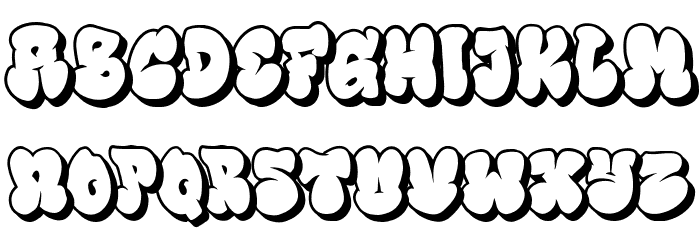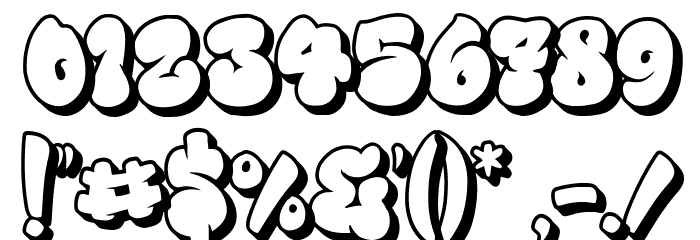
Street Urban Shadow Font
This font features a bold, playful style with a strong urban influence. Each character is designed with a thick, rounded form and a prominent shadow effect that gives a three-dimensional appearance. The letters are evenly spaced, maintaining a cohesive look across both uppercase and lowercase alphabets. The numbers and special characters follow the same design principles, ensuring consistency throughout. The font's bubbly and exaggerated forms make it ideal for eye-catching designs. Its unique style is perfect for projects that aim to convey a sense of fun and creativity.
A bold, playful font with a strong urban influence and a three-dimensional shadow effect.
- Font: Street Urban Shadow
- Weight: Shadow
- Proposed Projects: Ideal for street art designs, graffiti-inspired projects, posters, and playful branding.
- Overall Style: Urban, Playful, Modern
- Use Case: Logos, Posters, Headlines